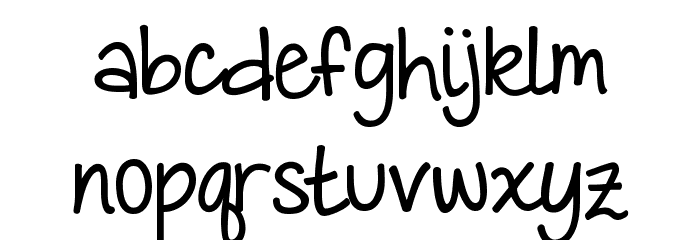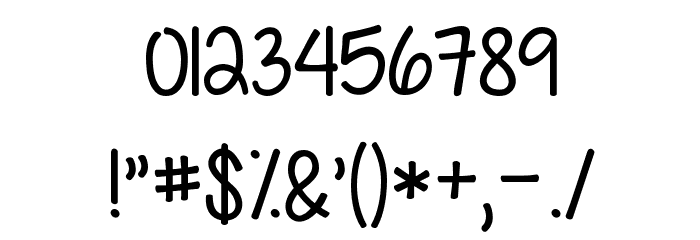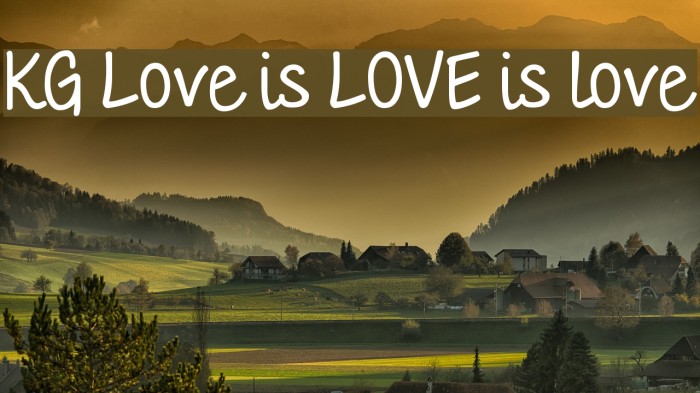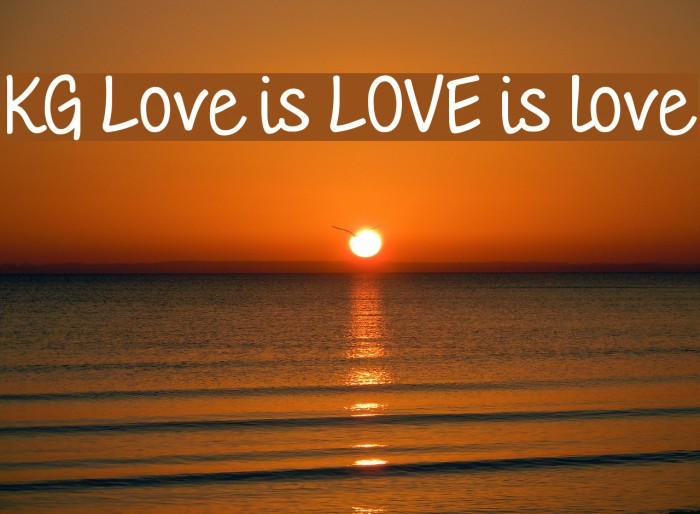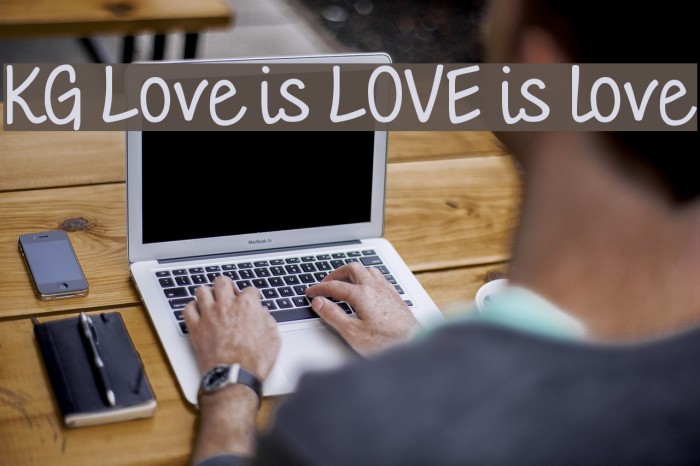
KG Love is LOVE is love Font
This playful and whimsical font features a handwritten style with a casual and friendly appearance. The characters are slightly rounded and have a smooth flow, giving it a relaxed and approachable feel. The uppercase and lowercase letters maintain a consistent style, with a slight slant that adds to its informal charm. The numerals and special characters are well-integrated, matching the overall aesthetic. This font is perfect for projects that require a personal touch or a fun, lighthearted vibe.
A playful handwritten font with a casual and friendly style.
- Proposed Projects: Ideal for greeting cards, children's books, playful branding, and social media graphics.
- Category: Handwritten
- Overall Style: Casual and playful
- Use Case: Headlines, Logos, Informal text